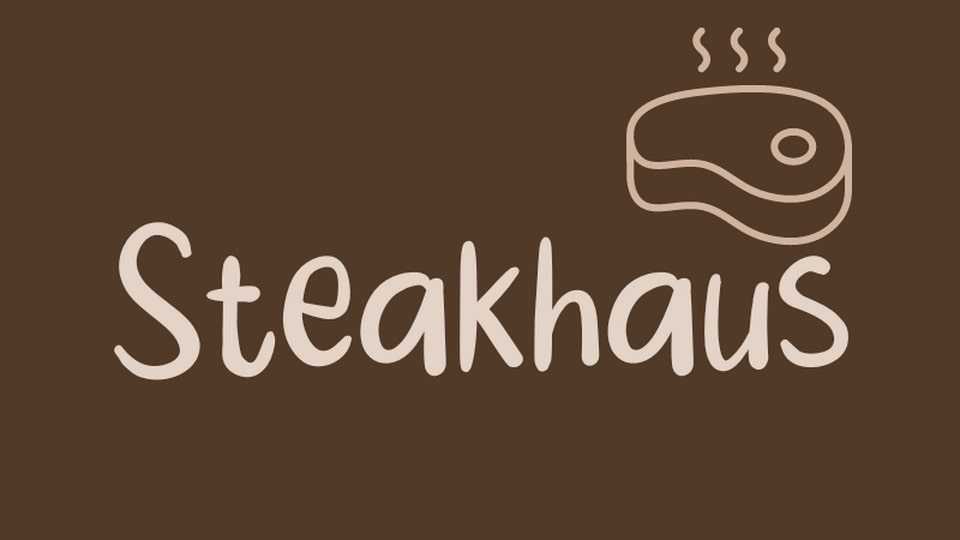
Download Steakhouse font, a beautifully natural hand-drawn typeface that exudes an organic, grounded feel crafted with soft lines and subtle variations.